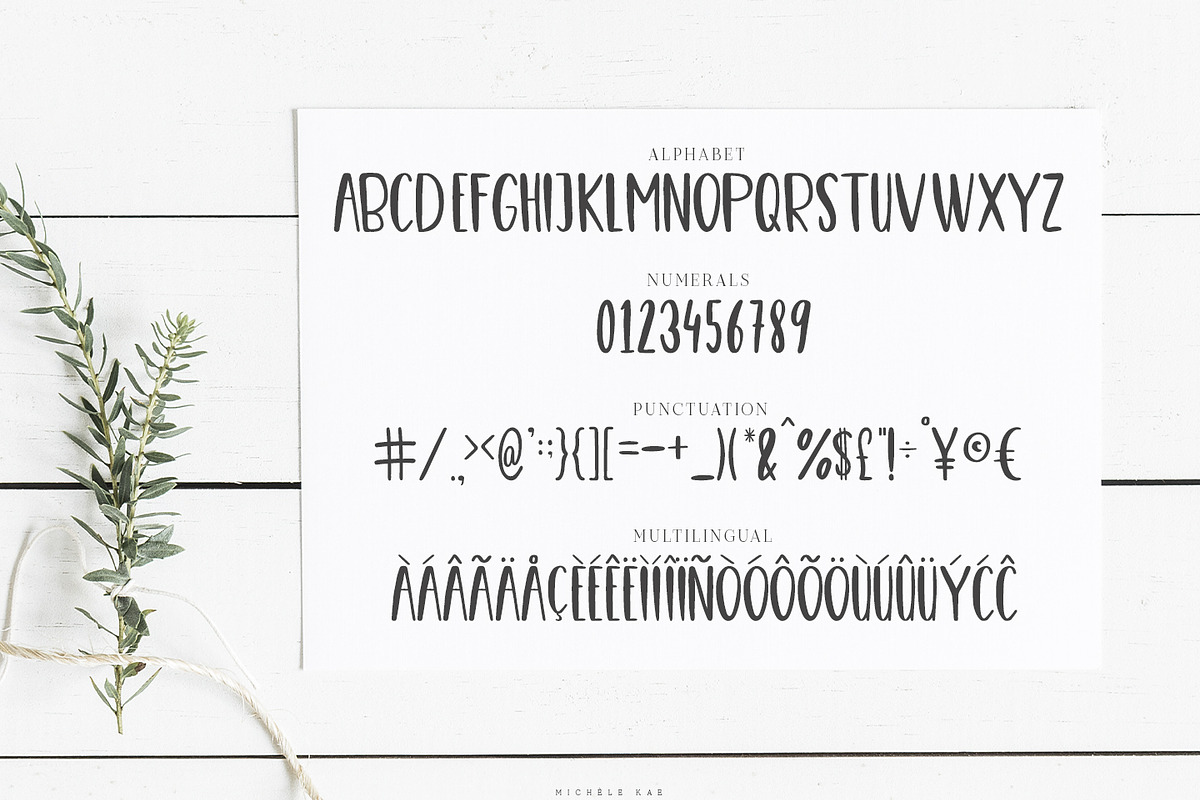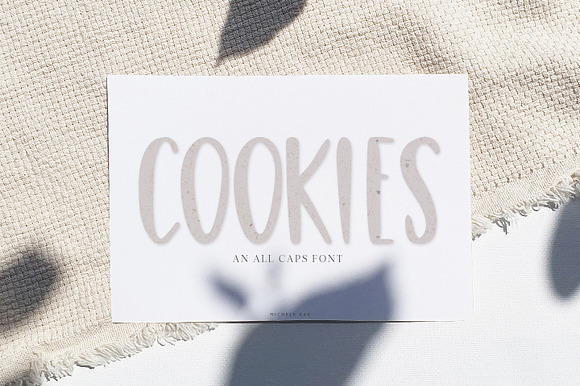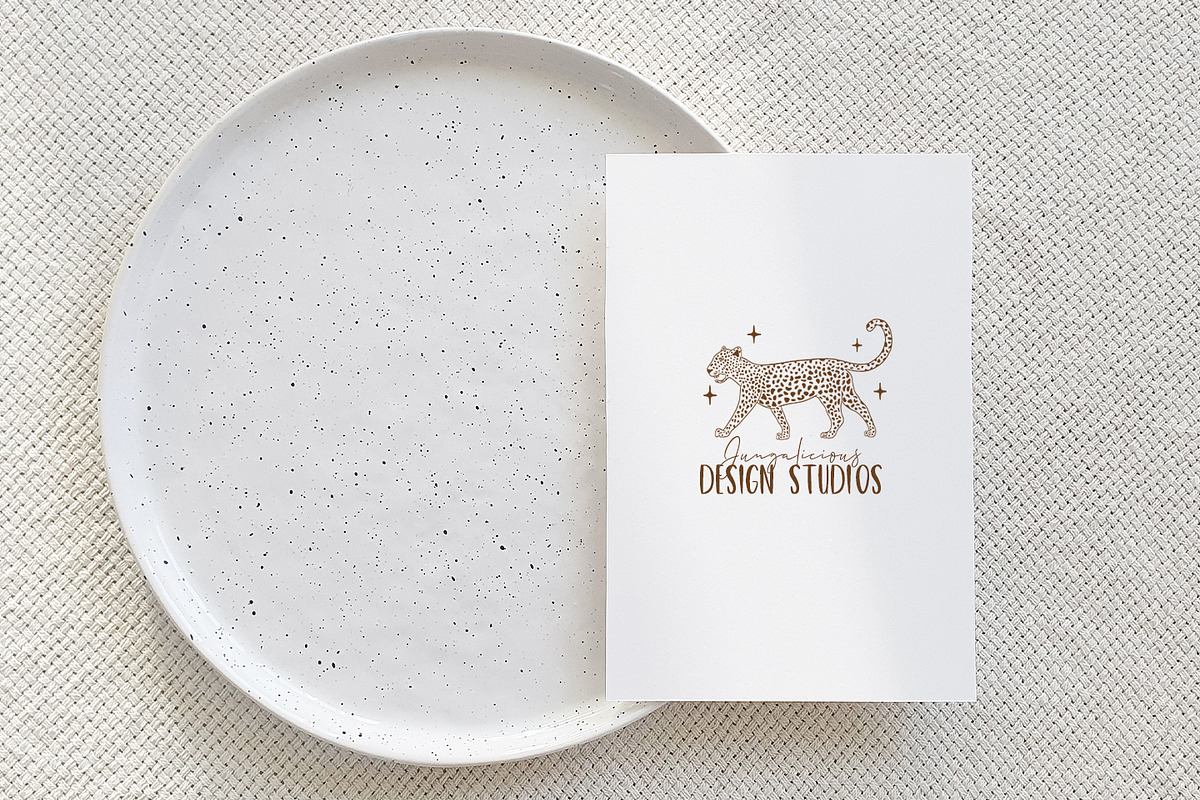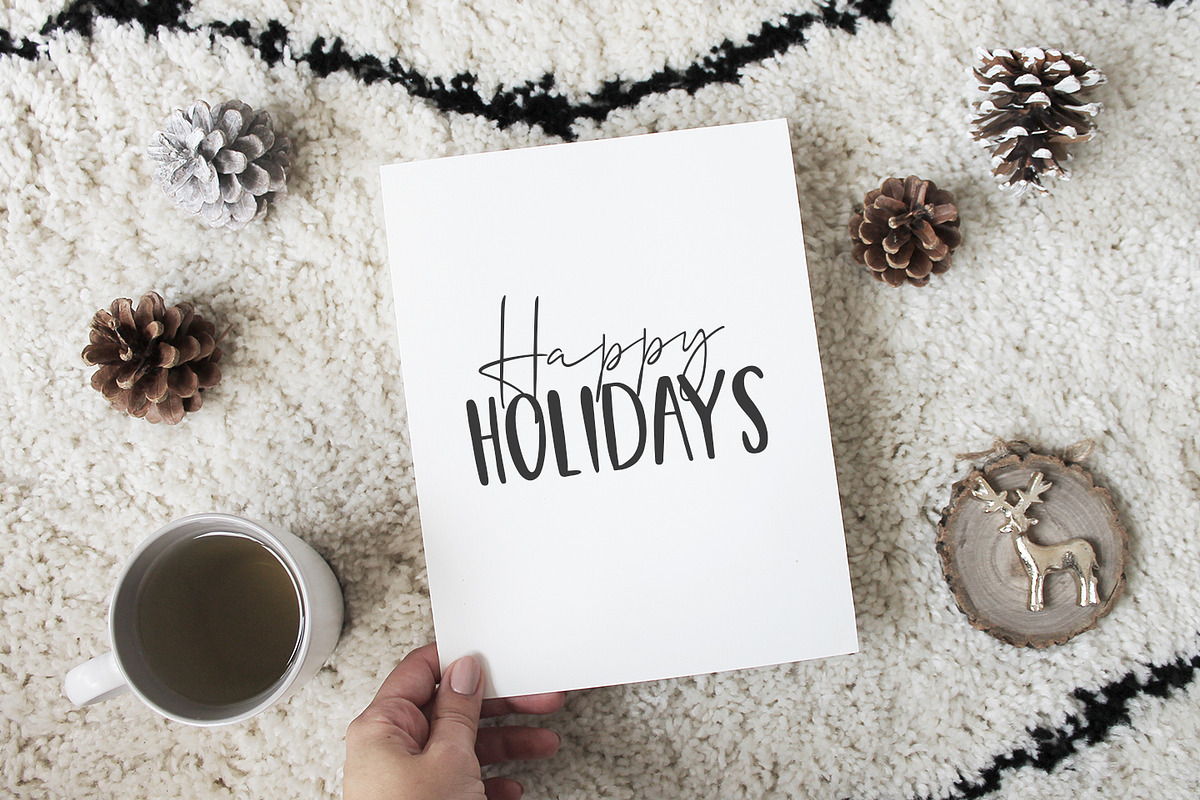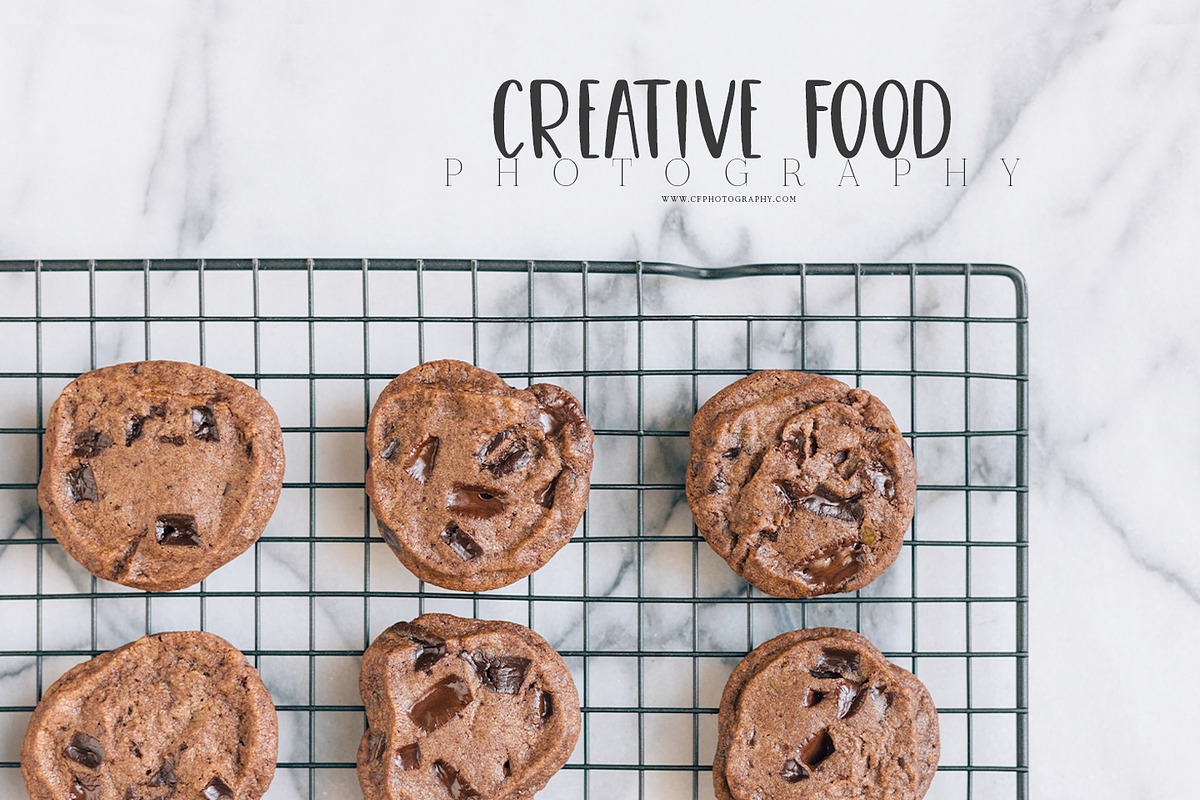
Cookies | A Fun Casual Font
Introducing COOKIES a fun and casual all caps font. Great for Menu cards, Logo's, Posters, Packaging, Invites, Flyers, and any other designs. This font is also perfect for smooth SVG designs.
Cookies | A Fun Casual Font by Michèle Kae fits naturally into Branding, posters, packaging, typography.